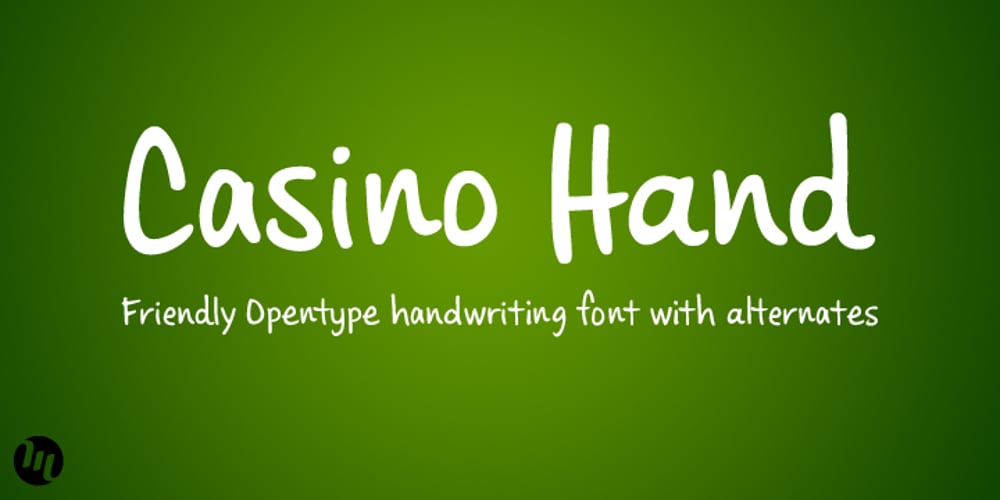
Casino Hand
Casino Hand font
Casino Hand Font Family was designed by Matthew Aaron Desmond and published by MADType. Casino Hand contains 1 styles and family package options. Casino Hand is a handwriting font that comes with some exciting new OpenType features*. The font comes with an alternate glyph for every uppercase letter, lowercase letter, numbers and some punctuation. These alternates are extremely easy to use with OpenType doing all of the hard work for you! Plus, you get the cross platform compatibility that OpenType provides. When the Contextual Ligatures feature of Casino Hand is utilized in your graphics application, the font substitutes a duplicate letter with the alternate glyph for that letter. This automatically makes the font look less like a font and more like real handwriting! Casino Hand also allows you to switch to use the alternate glyphs as the default by using the Stylistic Alternates feature. You can even use the two OpenType features together! This means that you can have duplicate glyph substitution with either the standard letters, or the alternates. You can also use the Glyph window in the Adobe CS applications to selectively choose characters. You can simply go into the glyph window and replace a letter that you don’t like with its alternate. With Casino Hand, you essentially get two fonts in one, and a handwriting font that is much easier to use than previous designs. * Contextual Ligatures and Stylistic Alternates require Adobe CS applications. Many more software applications will be supporting these features soon!